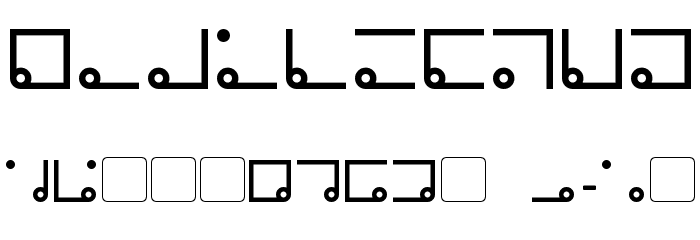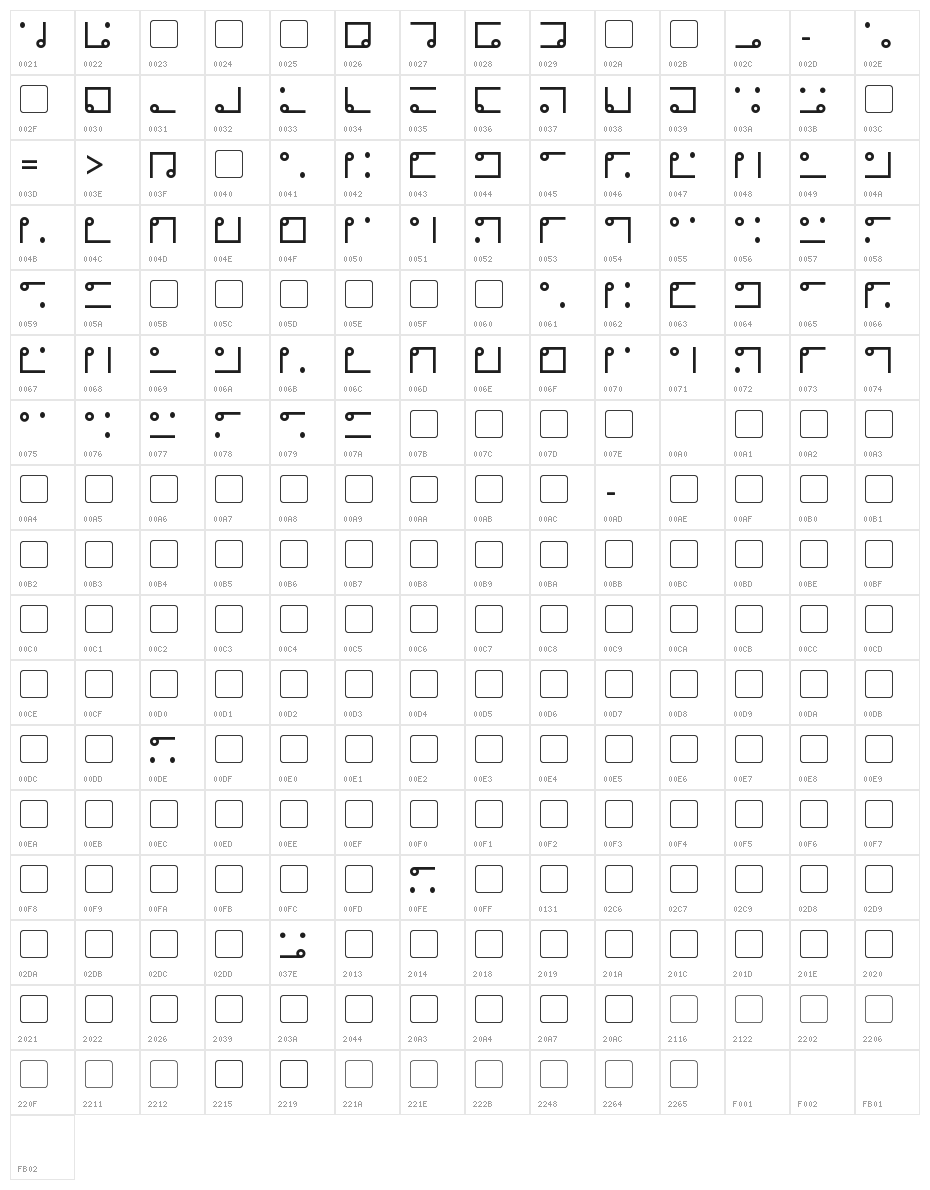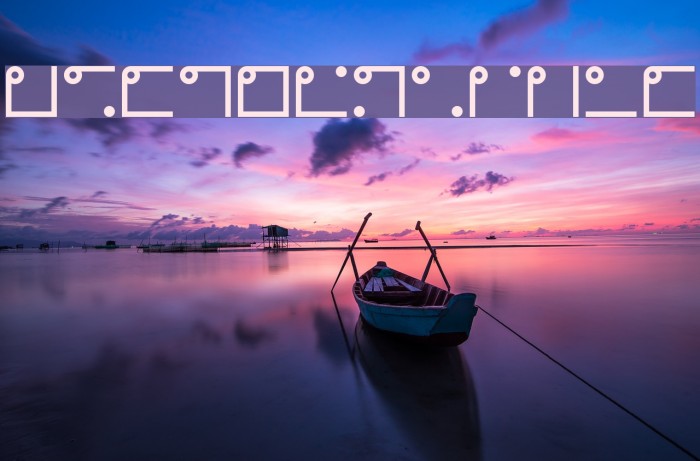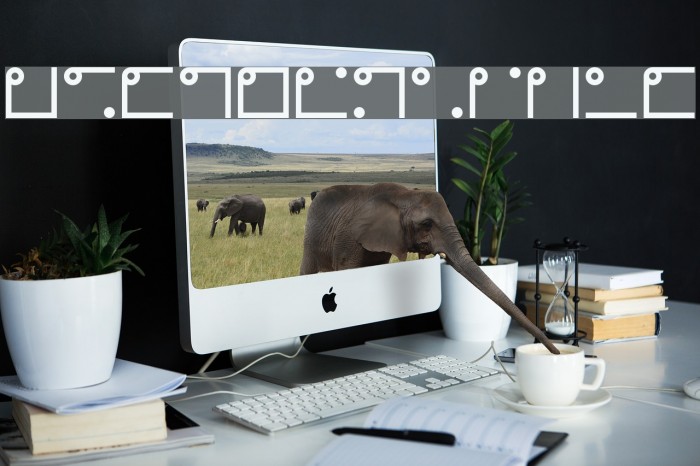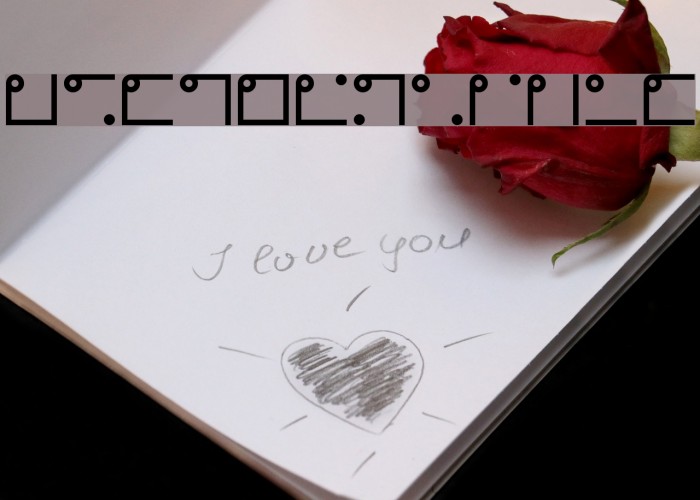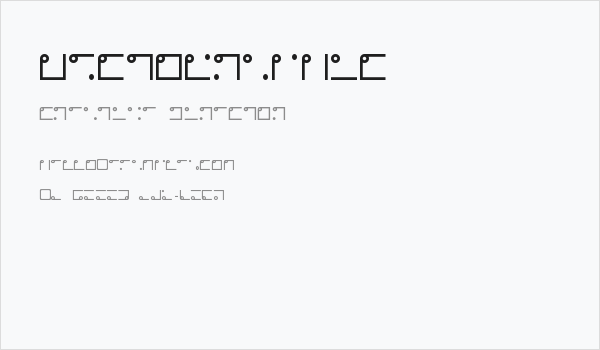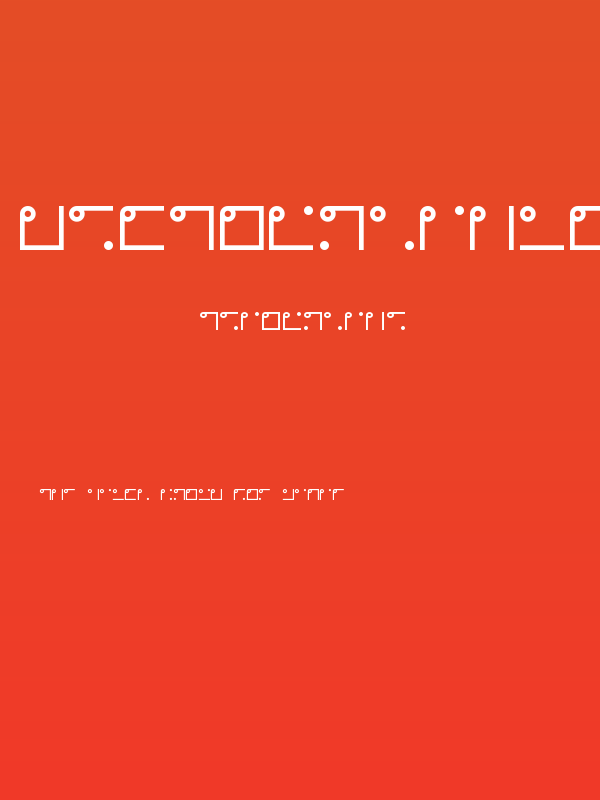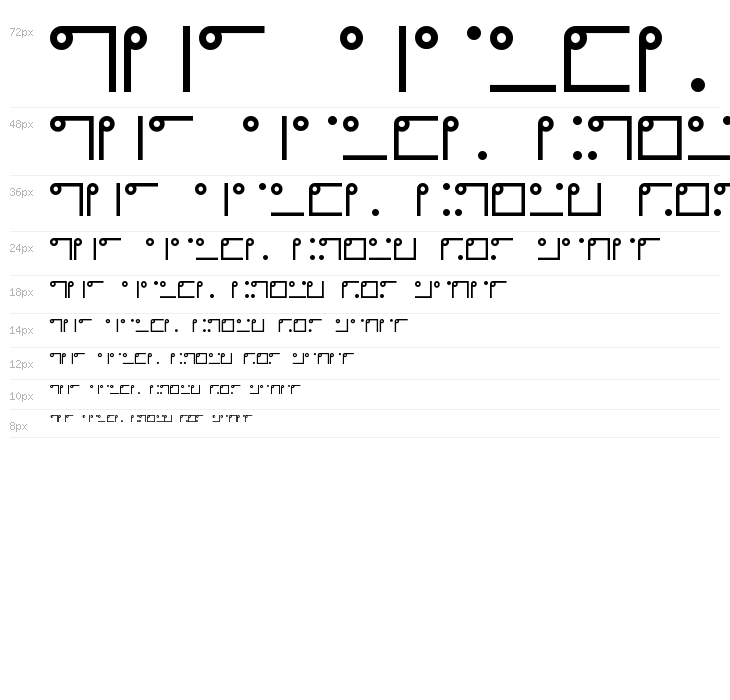
Nyctographic Font
Nyctographic Description
This font is a unique and artistic script that combines geometric shapes with a modern twist. The characters are composed of lines and dots, creating a visually intriguing pattern that resembles a futuristic or coded language. The design is minimalistic yet complex, with each letter having a distinct form that maintains consistency across the alphabet. The font's style is reminiscent of digital or sci-fi themes, making it ideal for projects that require a contemporary and innovative look. Its abstract nature allows for creative applications, and it stands out due to its unconventional appearance.
| Use Case | Logos, Decorative elements, Digital art |
| Proposed Projects | This font is perfect for use in digital art, sci-fi themed projects, futuristic branding, and innovative product designs. It can also be used in video game interfaces or as a decorative element in modern graphic design. |